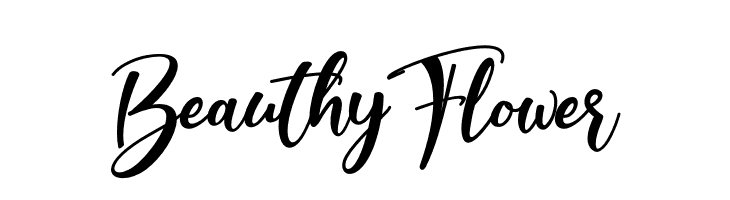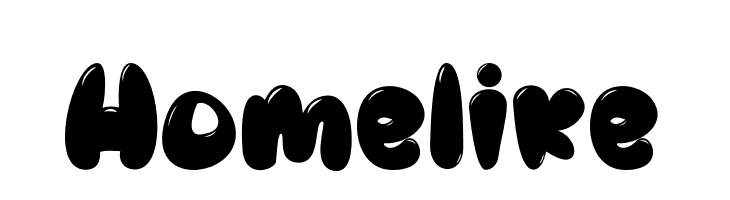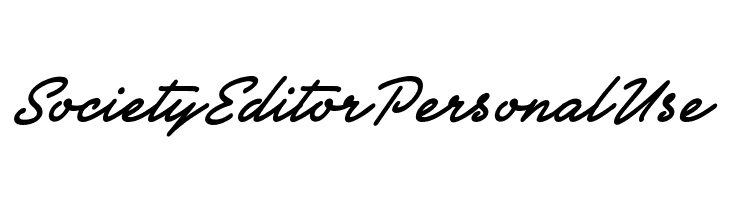
A lively and elegant script font with flowing, interconnected letters.
A bold, textured script font with a playful, handcrafted style.
A dynamic, edgy font with sharp angles and a distressed texture.
A dynamic, cursive script font with fluid, expressive strokes.
A pixelated, italic font with a digital, glitchy aesthetic.
A fluid and elegant handwritten script font with a dynamic cursive style.
A bold, italicized handwritten font with dynamic, cursive strokes.
A bold, futuristic font with a three-dimensional effect and geometric design.
A playful, bold, hand-drawn font with a whimsical style.
A playful and elegant script font with flowing, interconnected letterforms.